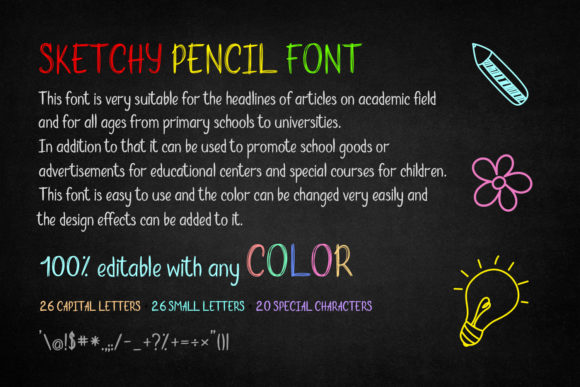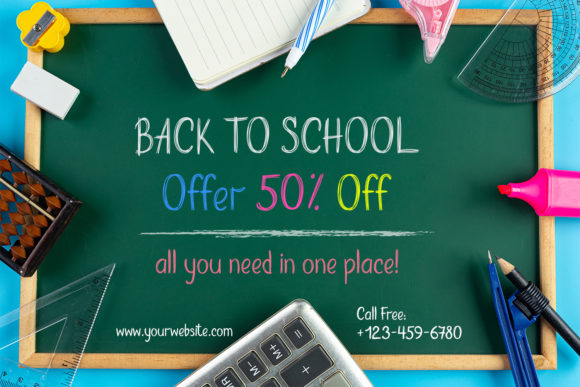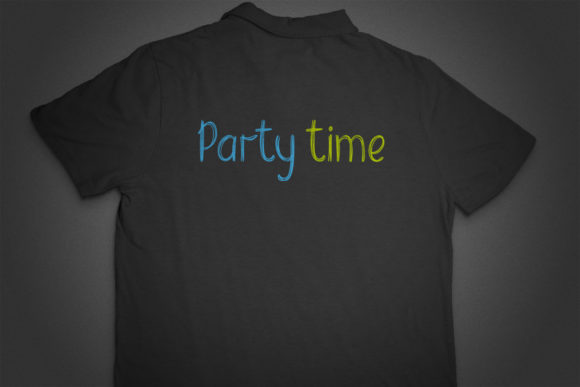
Introduction to Sketchy Pencil Font
Have you ever been in the middle of a creative project, only to find the perfect inspiration in the most unexpected place? For me, it was a childhood memory of scribbling with a pencil on the sidewalk, the chalk dust flying everywhere as I brought my imagination to life. The Sketchy Pencil Font is a digital interpretation of those carefree moments, a beautiful and playful script that’s perfect for designers looking to add a touch of whimsy to their projects.
This versatile font is a valuable resource for designers, offering a high-quality alternative to traditional handwriting. With its transparent background and free download option, it’s easy to incorporate into any creative project, from school-themed projects to marketing materials. The Sketchy Pencil Font is a must-have for anyone looking to add a personal touch to their design work.
Key Features of Sketchy Pencil Font
- Unique, hand-drawn design that adds a personal touch to creative projects
- High-quality, vector-based font files for seamless scaling and editing
- Perfect for designers and artists working on children’s book illustrations, editorial content, or other creative projects requiring a whimsical, hand-drawn look
Honest Review: Sketchy Pencil Font
I recently had the opportunity to use the Sketchy Pencil Font in one of my design projects, and I must say, it was a delightful experience. This font is perfect for creatives looking to add a touch of whimsy and playfulness to their work.
- ✨ Unique and quirky design that adds character to any project
- ✨ High-quality font that renders smoothly on various devices
- ⚠️ Limited character set, which may not be ideal for longer pieces of text
- ⚠️ Not suitable for formal or professional designs, as it may come across as too casual
Overall, I was impressed with the Sketchy Pencil Font’s ability to add a touch of creativity to my project. While it may have some limitations, it’s a great resource for designers looking to inject some personality into their work. I’d definitely recommend it for personal or creative projects, especially those requiring a transparent background or a high-quality, unique font.
Experiment with different font sizes and colors to create a unique look and feel. Combine the font with other design elements, such as illustrations or images, to add depth and interest to your project.
The Sketchy Pencil Font is perfect for creative projects, such as children’s books, educational materials, or artistic portfolios. Use it to add a personal touch to your designs and make them stand out from the crowd.